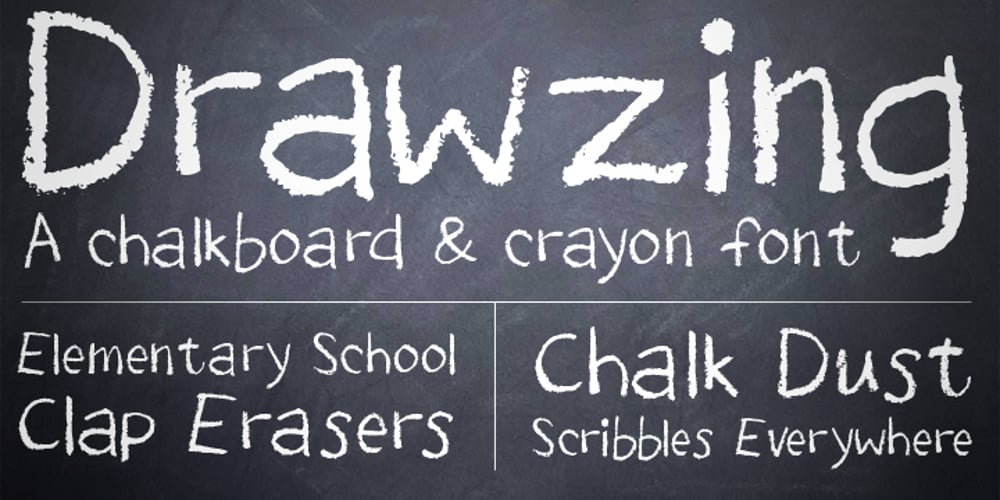
Drawzing
Drawzing font
Drawzing Font Family was designed by Ethan Paul Dunham and published by Fonthead Design. Drawzing contains 1 styles and family package options. Drawzing is a font designed by Ethan Dunham that mimics the looks of either chalk or crayon. The font is well balanced and is not overly childish.